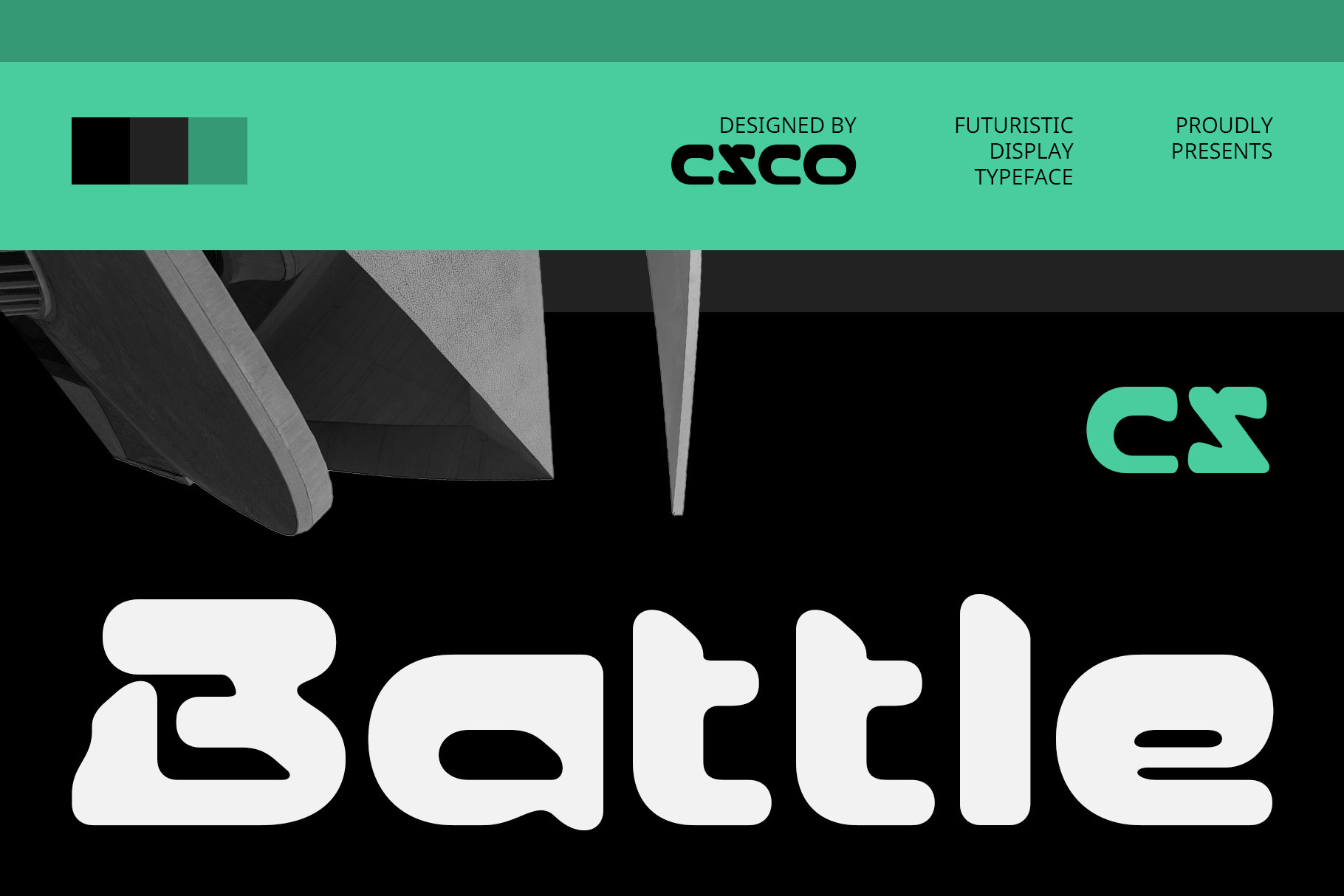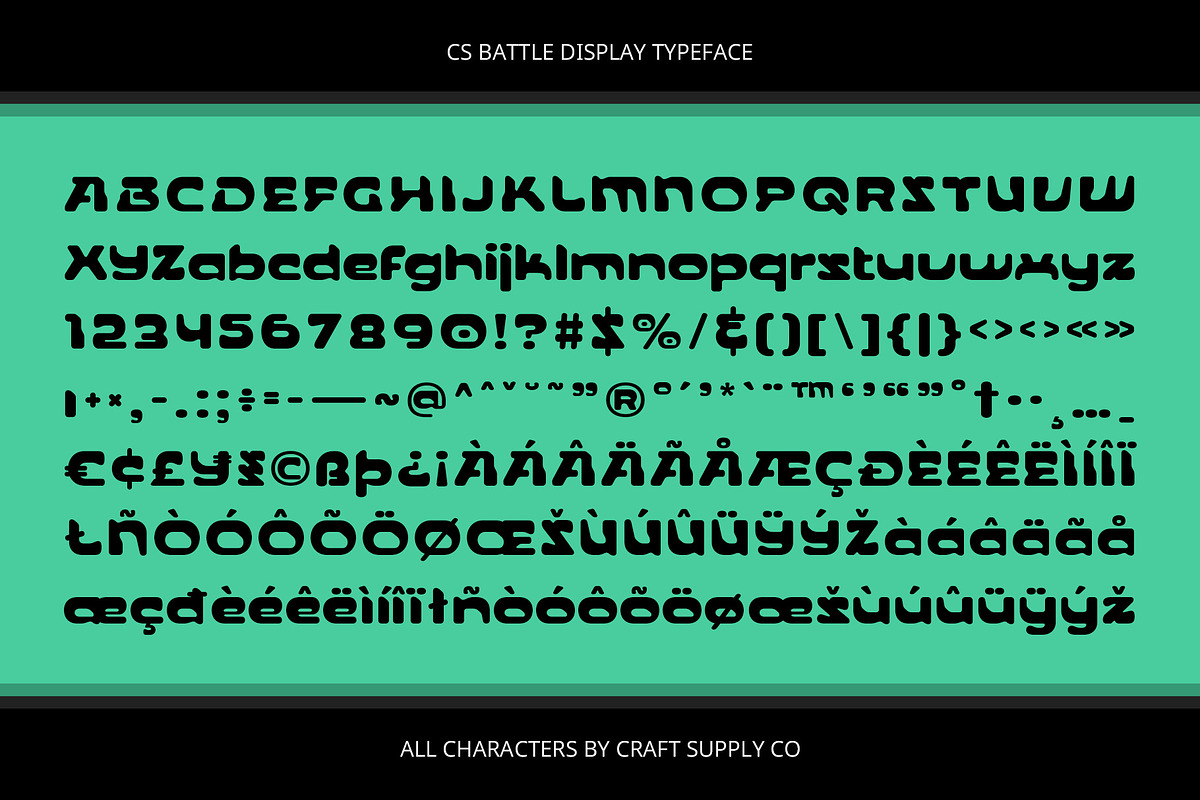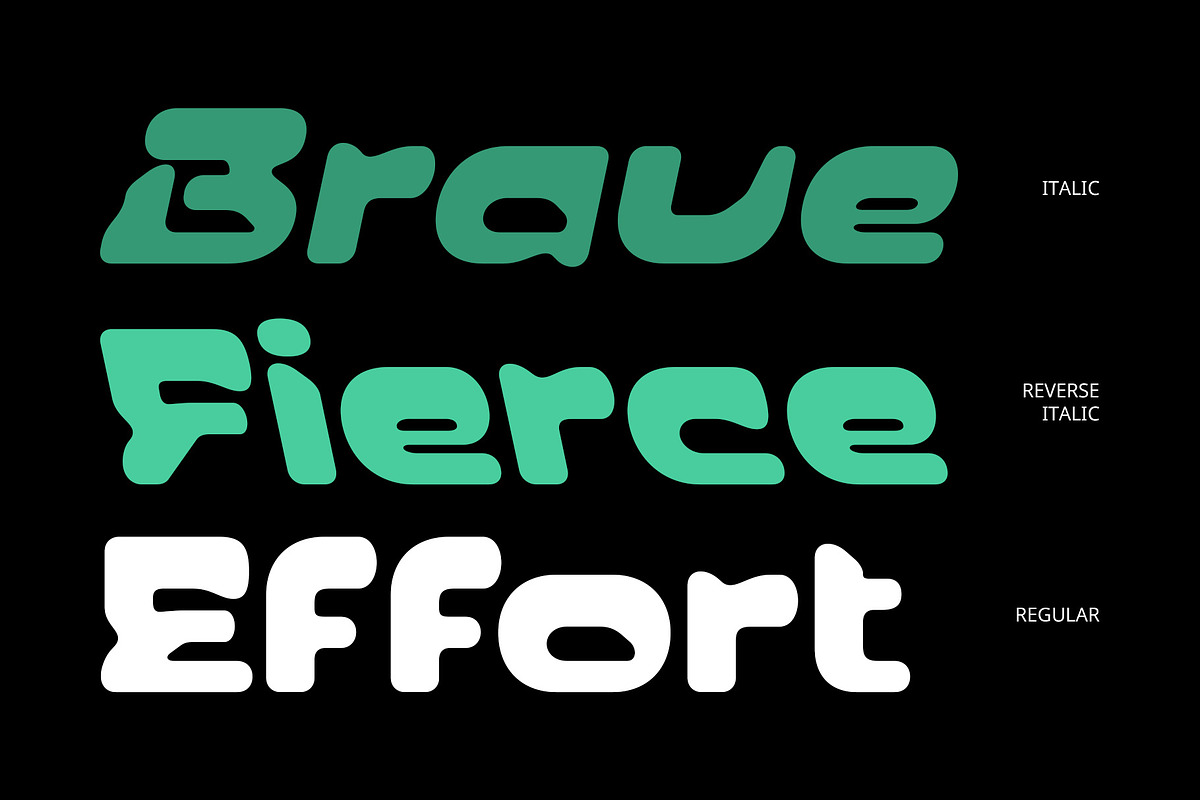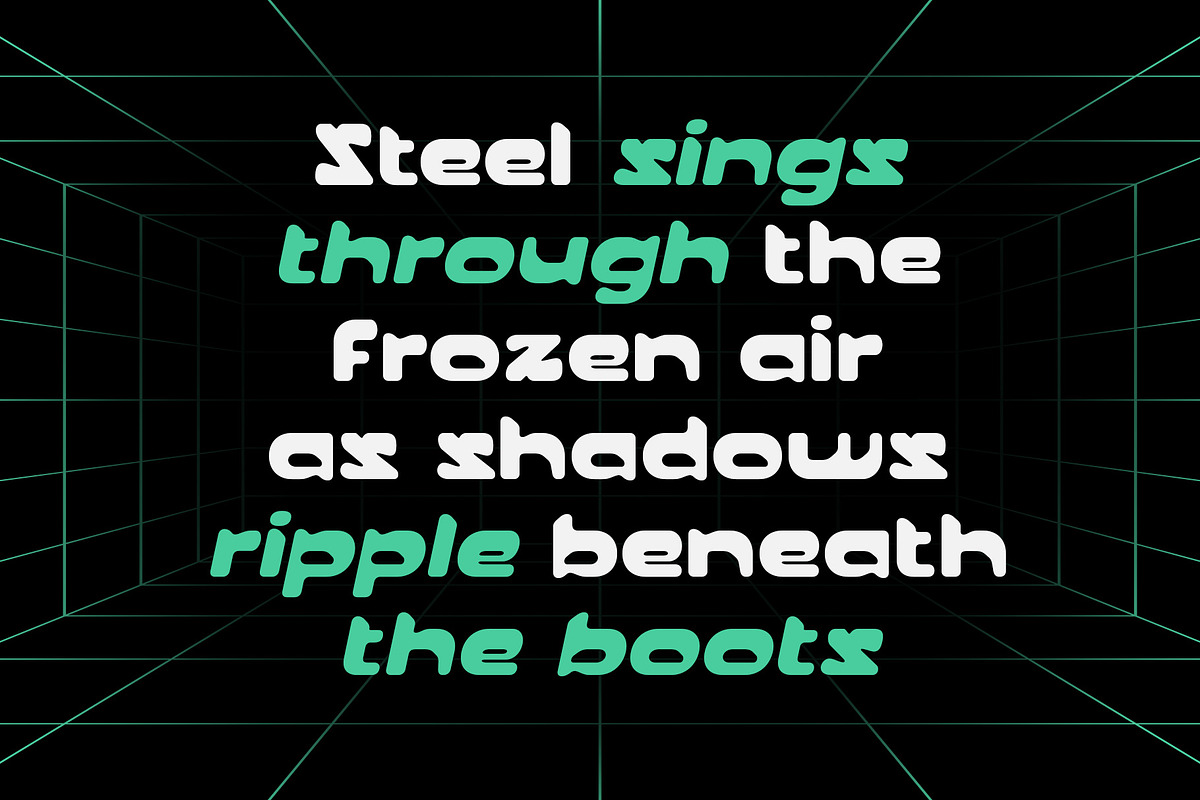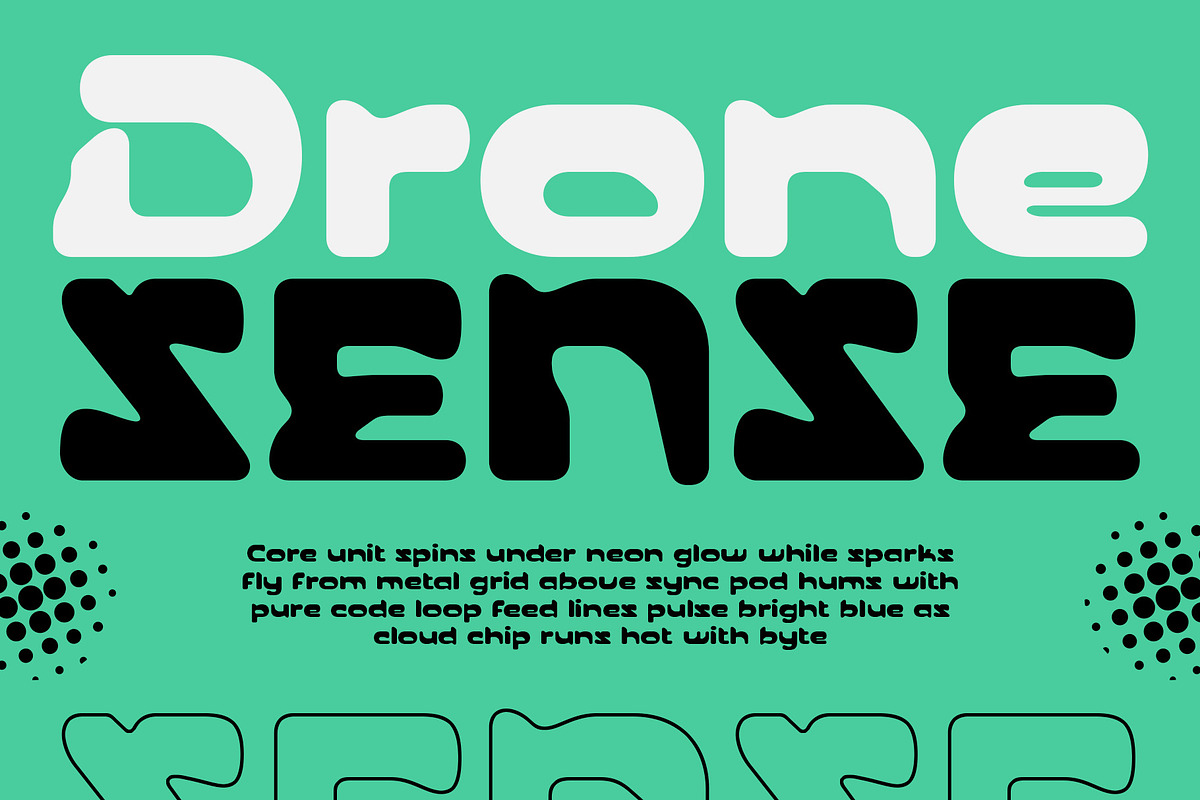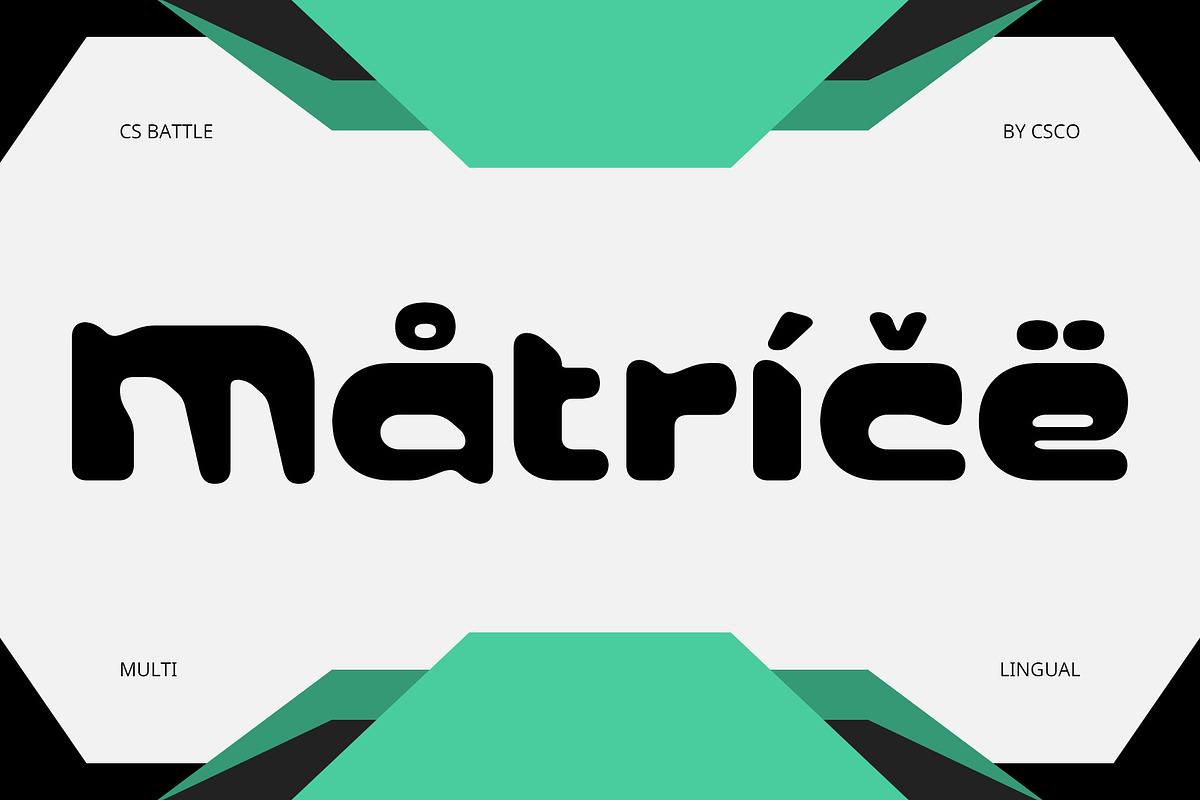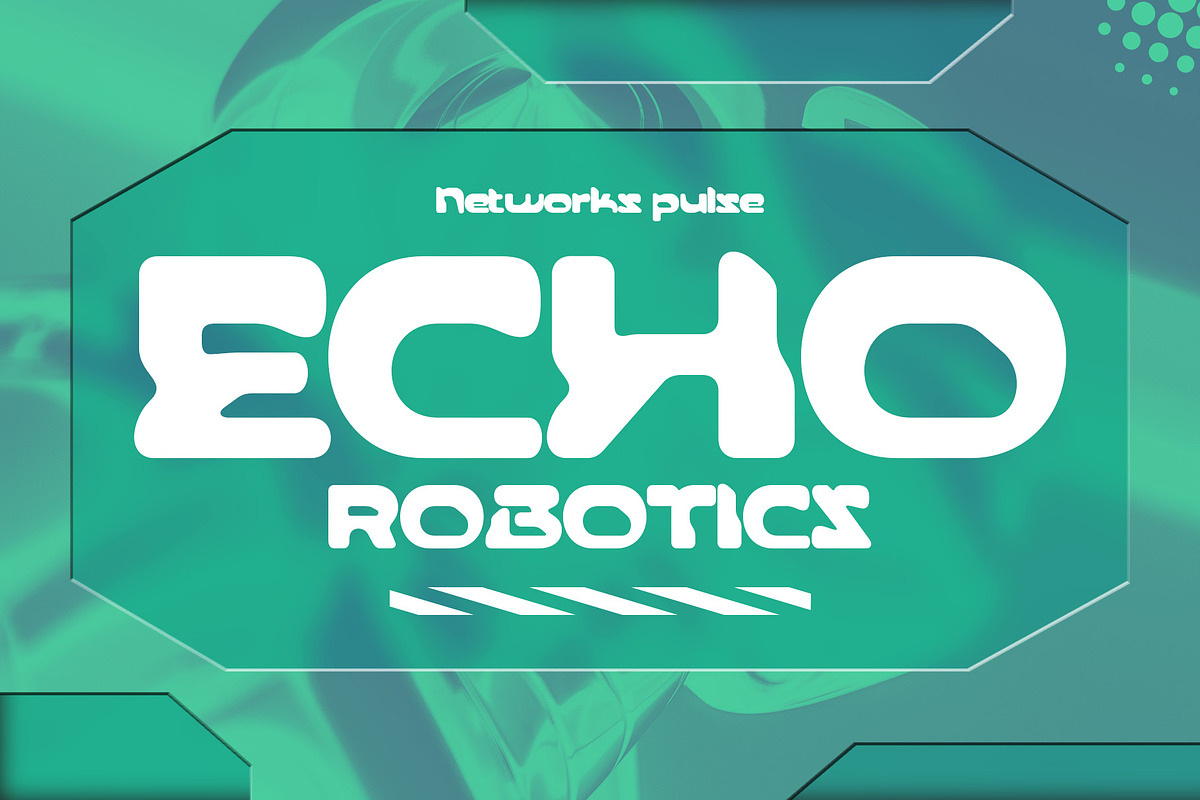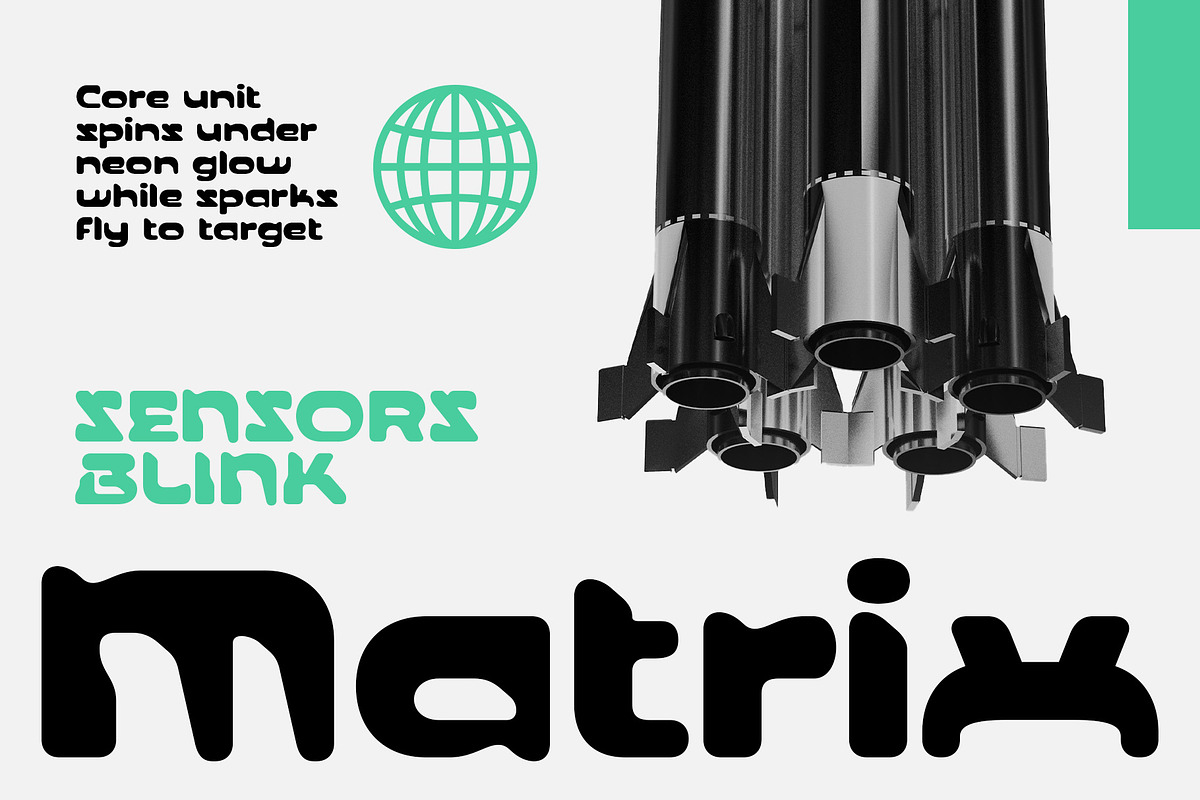
CS Battle – Futuristic Font
CS Battle – Futuristic Bold Display Font
A Sharp, Visionary Typeface for the Future CS Battle is a futuristic display font that combines bold geometry, precise structure, and a clean, contemporary style. Its sleek and angular design elements reflect the visual language of modern technology, innovation, and advanced digital systems. This font exudes confidence, clarity, and futuristic sophistication.
Designed for Digital-First, High-Tech Branding With its rigid forms and sharp contours, CS Battle evokes the feel of cutting-edge interfaces and forward-thinking identity systems. It’s ideal for tech branding, startup logos, gaming titles, UI/UX interfaces, and any visual project that seeks to express modernity, innovation, and strength.
Geometric Power Meets Visual Precision The font’s structure relies on a balance of strong verticals, clear horizontals, and angular cuts that give it a futuristic rhythm. Its aesthetic draws from science fiction, cyberpunk, and modern minimalism, offering a professional yet imaginative typographic voice.
Perfect for Bold, Daring Creative Work Whether you’re working on a futuristic poster, digital campaign, or a bold visual identity, CS Battle ensures your message comes across as cutting-edge and visionary. CS Battle doesn’t just follow trends—it sets a tone of advancement. It empowers designers to push boundaries while maintaining sleekness and professionalism. If your design aims to speak to a future-oriented audience with confidence and style, CS Battle provides the perfect typographic voice.
- CS Battle Regular
- CS Battle Italic
- CS Battle Reverse Italic